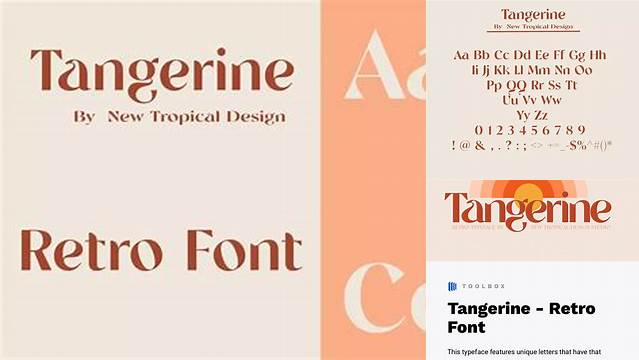
Hey there, design enthusiasts! Are you looking to infuse your projects with a touch of vintage charm? Look no further! The tangerine retro font is here to take you back in time with its unique, stylish curves and classic feel. In this comprehensive guide, we’ll dive deep into the world of retro fonts, exploring what makes them so special, why the tangerine retro font is a standout choice, and how you can download and use it for free. So, grab your favorite beverage, settle in, and let's get started on this retro journey!
What Makes Retro Fonts So Appealing?
Before we jump into the specifics of the tangerine retro font, let's talk about why retro fonts, in general, have such a strong appeal. Retro fonts evoke a sense of nostalgia, transporting us back to simpler times. They carry the essence of past eras, be it the groovy 70s, the bold 80s, or the quirky 90s. This nostalgic element makes them incredibly effective for branding, advertising, and design projects that aim to create an emotional connection with the audience.
Think about it: when you see a font that reminds you of old movie posters or vintage advertisements, it instantly triggers a feeling of warmth and familiarity. This is the power of retro fonts. They tap into our collective memories and create a sense of authenticity. For businesses, using a retro font can be a strategic move to convey a message of heritage, quality, and timelessness. For designers, these fonts are a fantastic tool for adding character and depth to their work. The best tangerine retro font captures the essence of mid-century modern design, characterized by its clean lines, organic shapes, and a sense of optimistic futurism. It’s a style that feels both classic and contemporary, making it versatile for a wide range of applications. When you incorporate tangerine retro font into your designs, you're not just choosing a typeface; you're telling a story. You're invoking a specific era, a particular mood, and a whole set of cultural references. This is why retro fonts are more than just design elements; they're narrative tools that can significantly enhance your creative projects. So, if you're looking to add a dash of nostalgia, authenticity, and vintage flair, embracing tangerine retro font is a brilliant choice. Let's explore further why this font stands out and how you can make the most of it in your designs.
Why Choose Tangerine Retro Font?
So, what sets the tangerine retro font apart from the vast sea of typefaces out there? Well, guys, it's all about its unique blend of classic aesthetics and modern usability. This font isn't just a throwback; it's a carefully crafted design that balances vintage charm with contemporary needs. The smooth curves, playful serifs, and overall friendly appearance make it incredibly versatile. Whether you're working on a logo, a website, a poster, or any other creative project, the tangerine retro font can add that special touch of retro elegance.
One of the key reasons to choose the tangerine retro font is its readability. Some retro fonts can be overly stylized, sacrificing clarity for aesthetics. However, the tangerine retro font strikes a perfect balance. It’s stylish enough to make a statement, yet clear enough to be easily read in various sizes and contexts. This is crucial for ensuring that your message is not only visually appealing but also easily digestible. The font’s design also incorporates subtle details that enhance its retro appeal. Think about the gentle curves and the slightly rounded edges – these elements contribute to its warm and inviting feel. It’s a font that seems to smile at you, making it an excellent choice for projects that aim to convey positivity and approachability. The tangerine retro font is also highly adaptable. It works beautifully in both headlines and body text, making it a versatile asset in your design toolkit. You can pair it with other fonts to create interesting contrasts or use it as the primary typeface for a cohesive retro look. Its compatibility across different platforms and software ensures that you can seamlessly integrate it into your workflow, no matter what tools you’re using. When you opt for the tangerine retro font, you’re choosing a typeface that is not only visually appealing but also practical and user-friendly. It’s a font that understands the importance of readability, versatility, and emotional connection, making it an ideal choice for a wide array of design projects. So, if you’re ready to add a touch of vintage flair to your work, the tangerine retro font is definitely worth considering. Now, let's find out how you can get your hands on this fantastic font for free.
Creative Ways to Use Tangerine Retro Font in Your Designs
First up, let's talk logos. A logo is the face of a brand, and the font you choose plays a crucial role in conveying the brand's personality. The tangerine retro font is perfect for brands that want to project a vintage, friendly, and approachable image. Imagine a logo for a retro-themed café, a vintage clothing store, or a handcrafted goods shop – this font would fit right in. Its smooth curves and playful serifs give it a warm and inviting feel, making it ideal for businesses that want to connect with their audience on a personal level. Moving on to websites, the tangerine retro font can be used in headlines, subheadings, and even body text to create a cohesive vintage aesthetic. Pairing it with a clean and modern sans-serif font can create an interesting contrast, making your website visually engaging. Think about using it for a blog about vintage culture, a portfolio website for a retro-inspired artist, or an e-commerce site selling vintage products. The font’s readability ensures that your content remains accessible, while its unique style adds character and flair. For social media graphics, the tangerine retro font can help your posts stand out in a crowded feed. Use it in eye-catching quotes, promotional graphics, and event announcements to capture your audience’s attention. Its retro vibe is particularly effective for themes like Throwback Thursdays or vintage-inspired campaigns. Consider creating a consistent visual identity by using the tangerine retro font across all your social media platforms. Beyond logos, websites, and social media, this font is also fantastic for print materials such as posters, flyers, and business cards. Imagine a poster for a retro movie night, a flyer for a vintage market, or a business card for a design agency specializing in retro aesthetics. The tangerine retro font can instantly transform these materials into visually appealing pieces that capture the essence of a bygone era. To truly make the most of the tangerine retro font, experiment with different sizes, weights, and colors. Try pairing it with vintage-inspired color palettes, such as warm yellows, oranges, and browns, to enhance its retro feel. Don't be afraid to play around with different combinations until you find the perfect fit for your project. The key is to let your creativity shine and use the font in a way that reflects your unique style and vision. So, go ahead and explore the endless possibilities – the tangerine retro font is ready to add a touch of vintage magic to your designs!
Tips for Pairing Tangerine Retro Font with Other Fonts
Now that you're excited to use the tangerine retro font, let's talk about how to make it truly shine by pairing it with other fonts. Font pairing is an art, guys, and the right combination can elevate your design from good to amazing. The goal is to create a visual hierarchy and balance, ensuring that your typography is both readable and aesthetically pleasing. So, how do you find the perfect match for the tangerine retro font?
Remember, the key to using the tangerine retro font effectively is to understand its personality and how it interacts with other design elements. Experiment with different combinations, trust your instincts, and don’t be afraid to push the boundaries. Whether you’re creating a logo for a vintage-themed business, designing a website with a retro aesthetic, or crafting eye-catching social media graphics, the tangerine retro font can help you achieve your goals. Its smooth curves, playful serifs, and overall friendly appearance make it a font that people love to look at and read. So, embrace the retro charm, download the tangerine retro font for free, and start creating designs that stand out from the crowd. With its timeless appeal and versatile nature, this font is sure to become a staple in your design arsenal. Happy designing, guys! And don't forget to share your creations with the world – we can't wait to see what you come up with using the tangerine retro font!